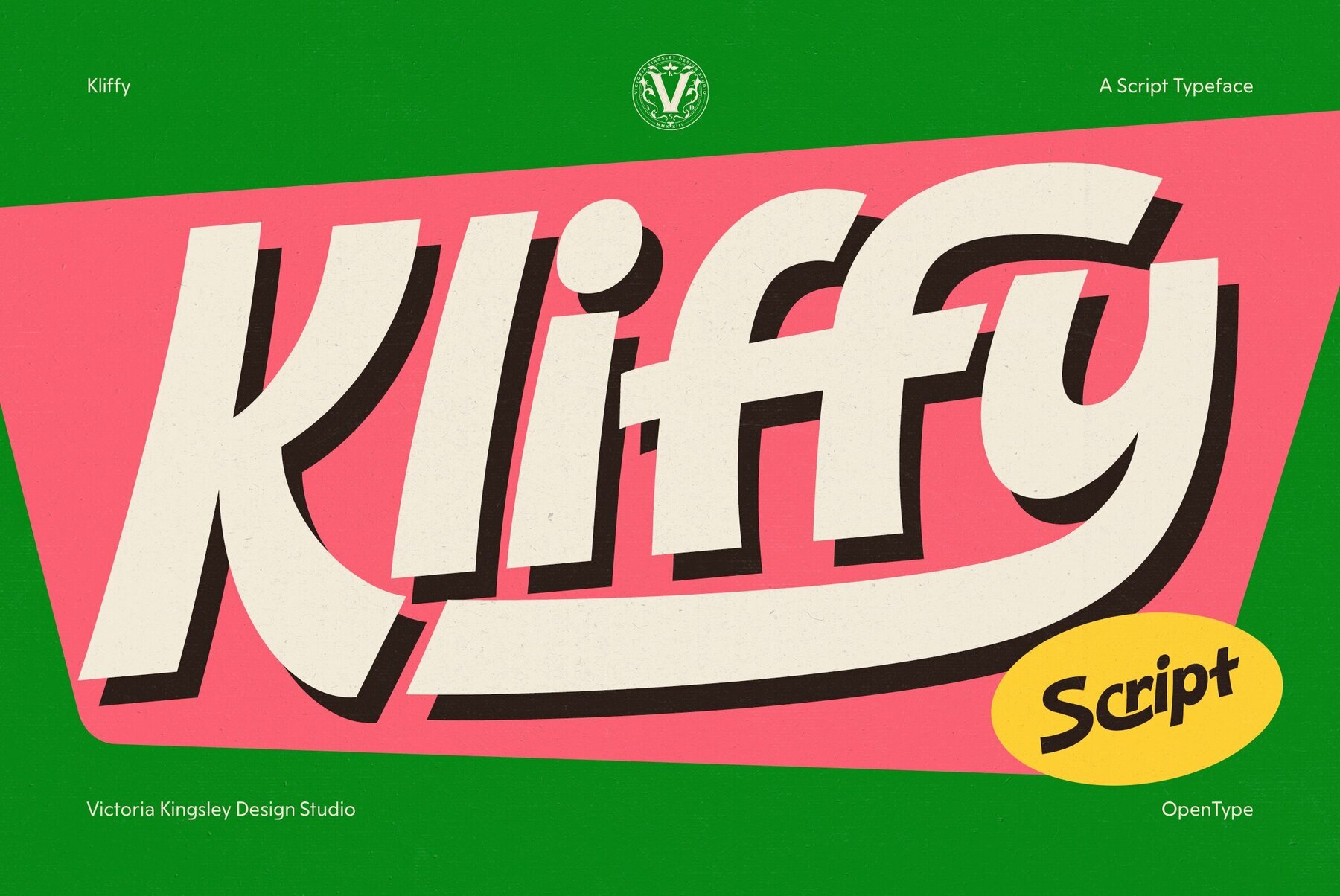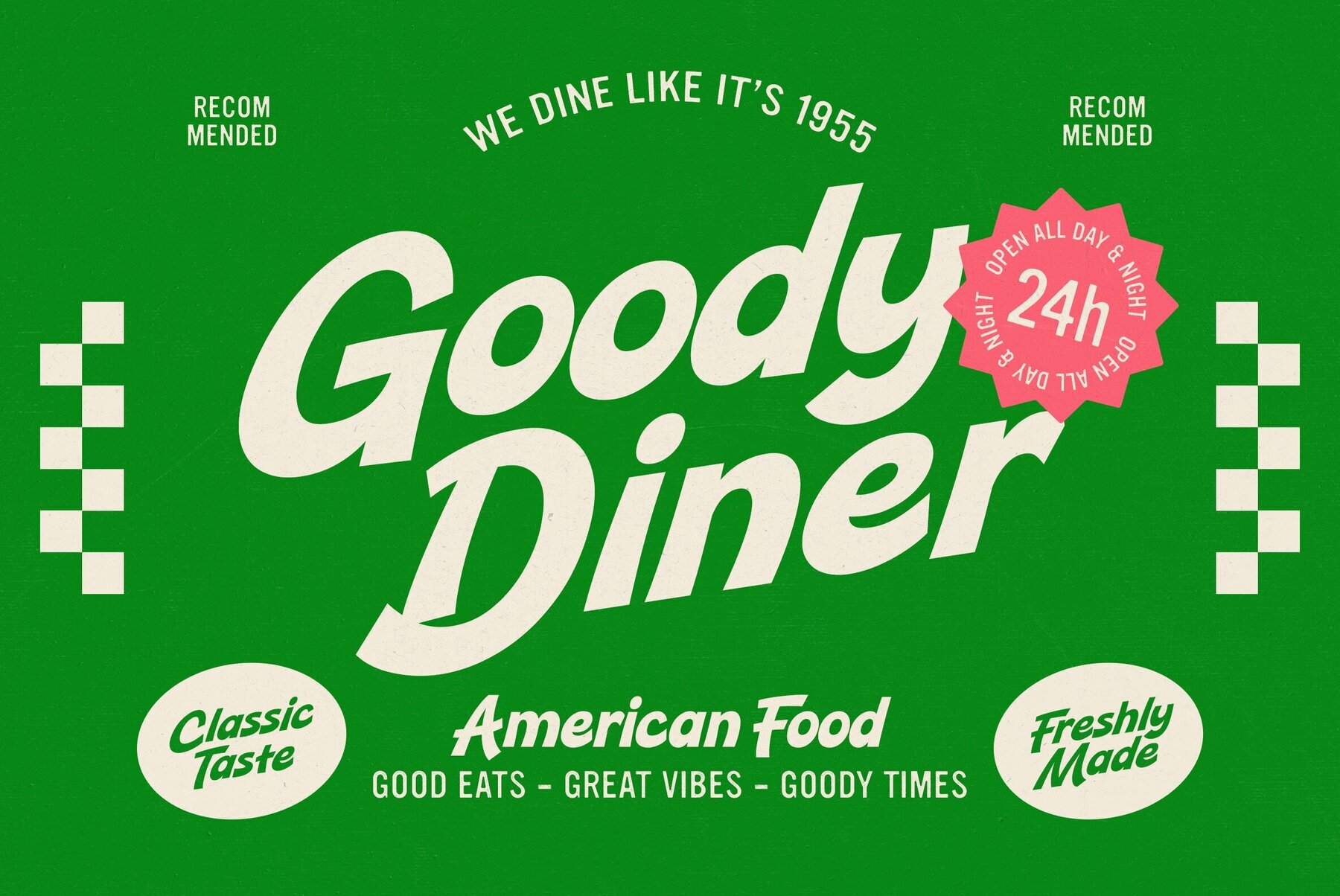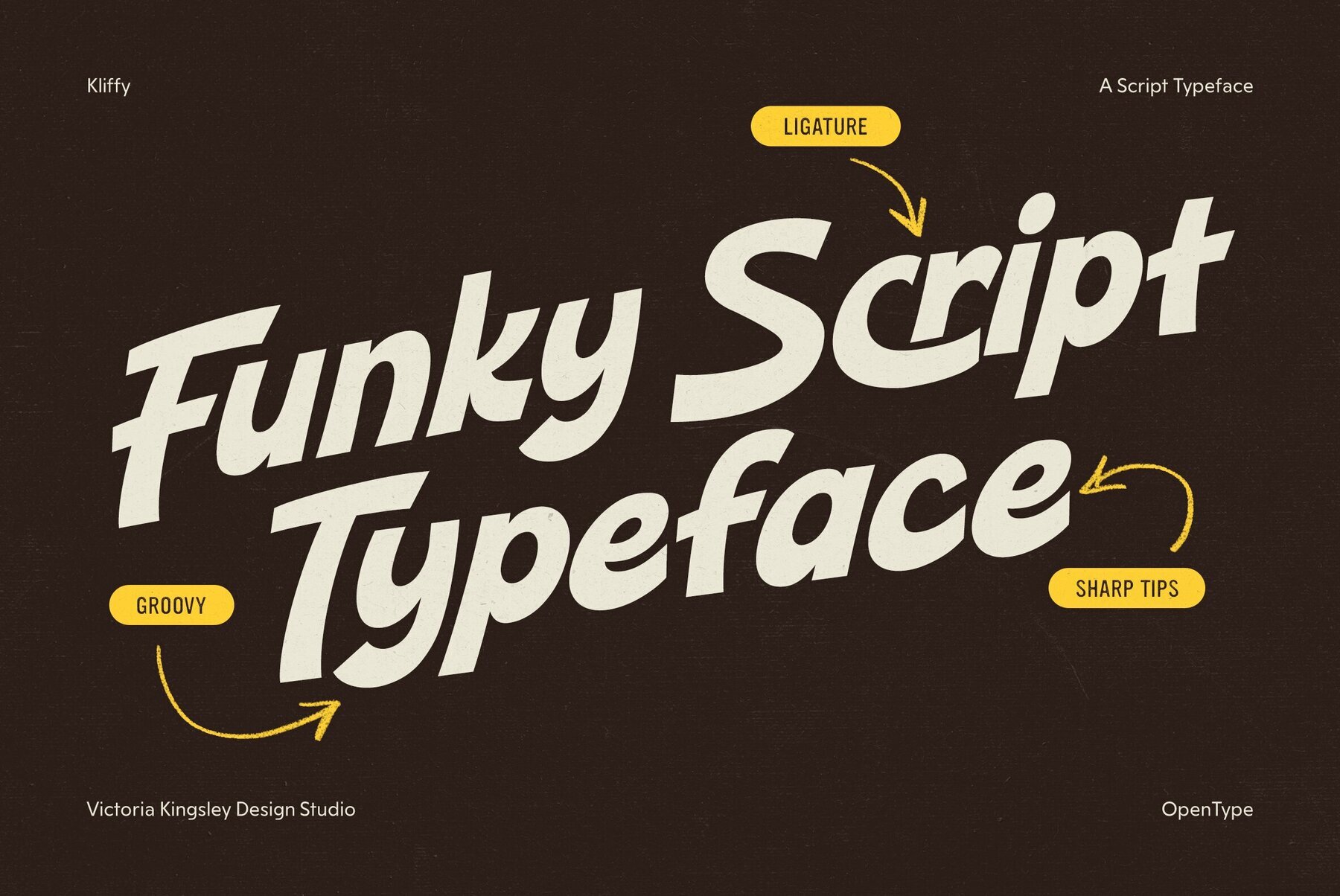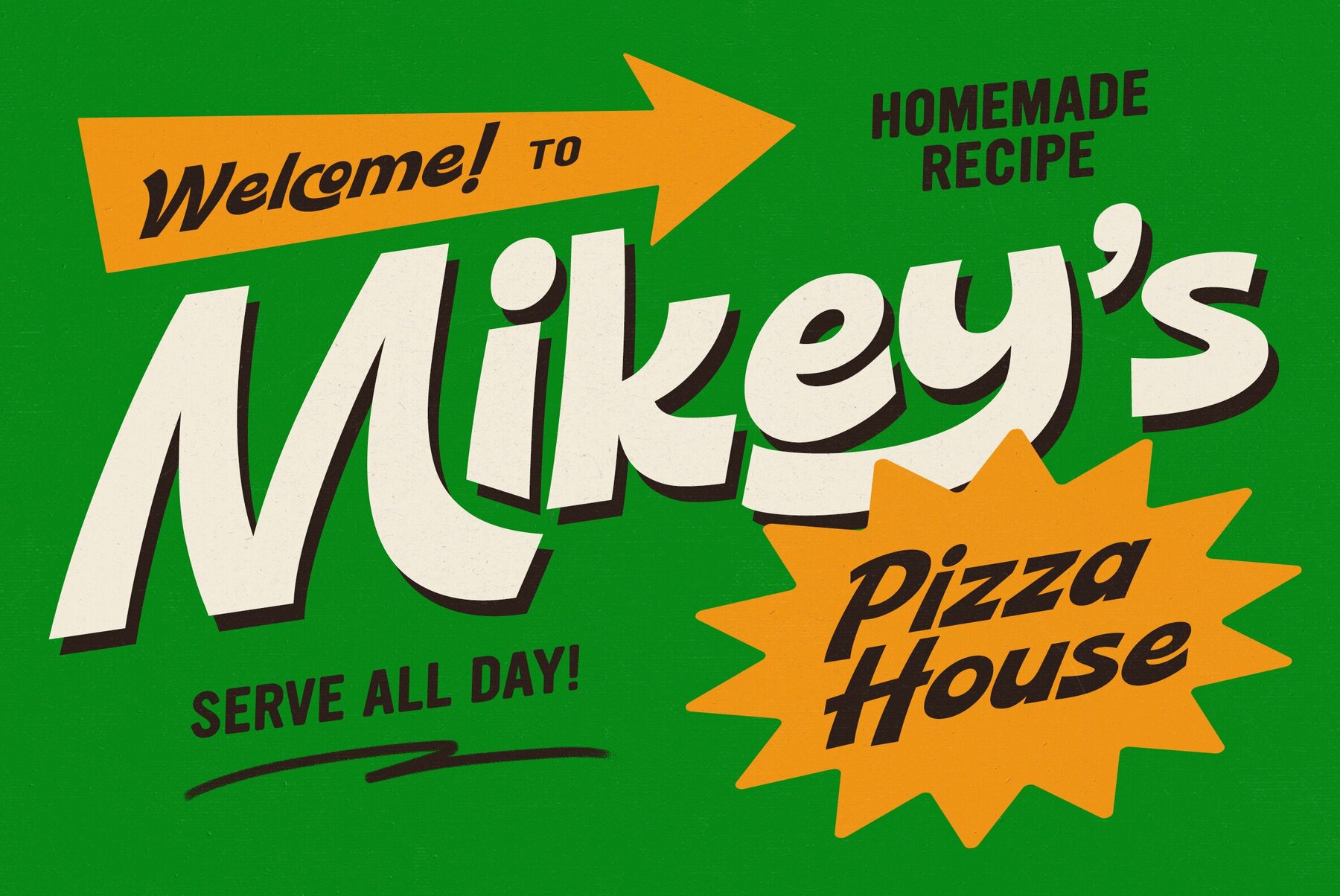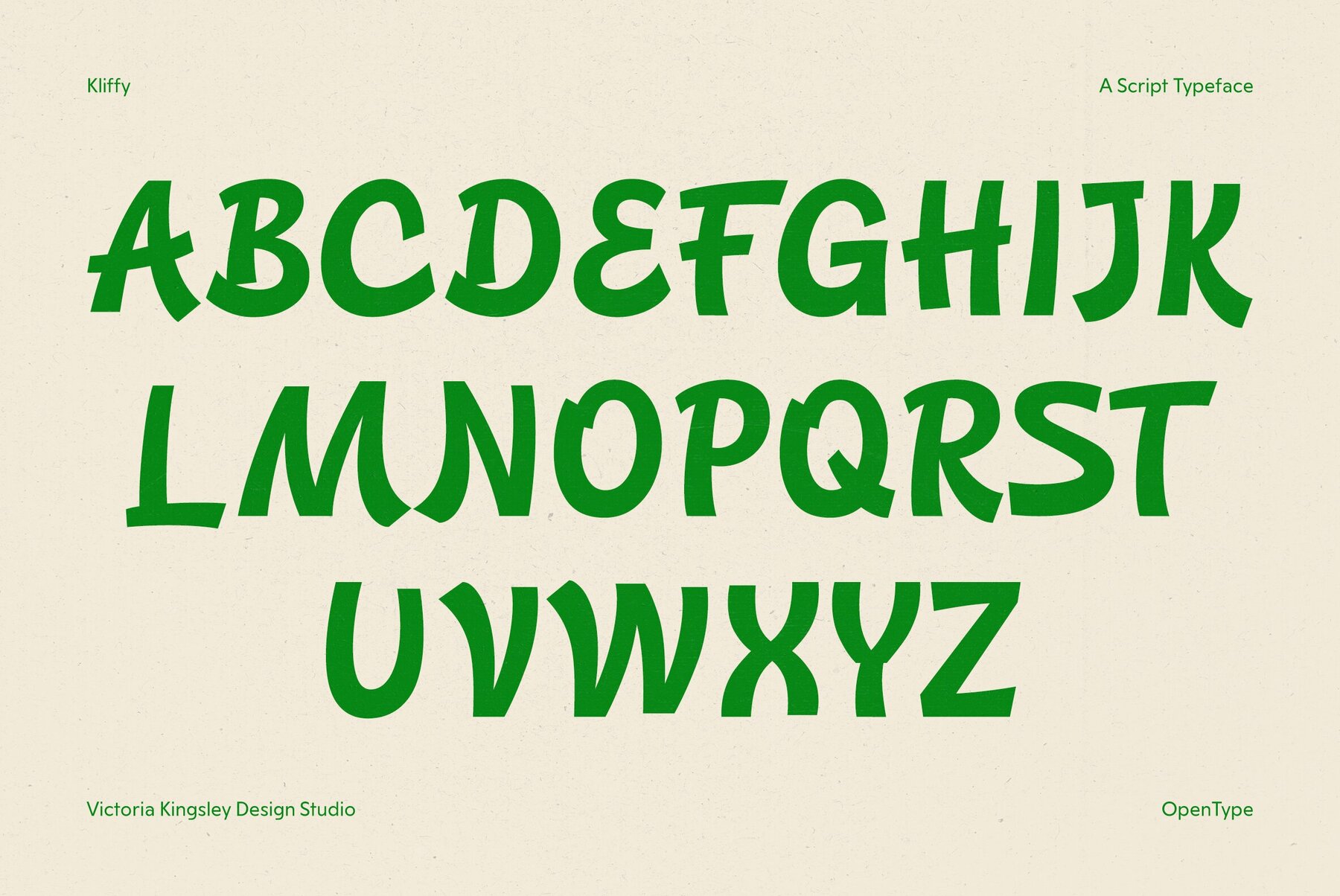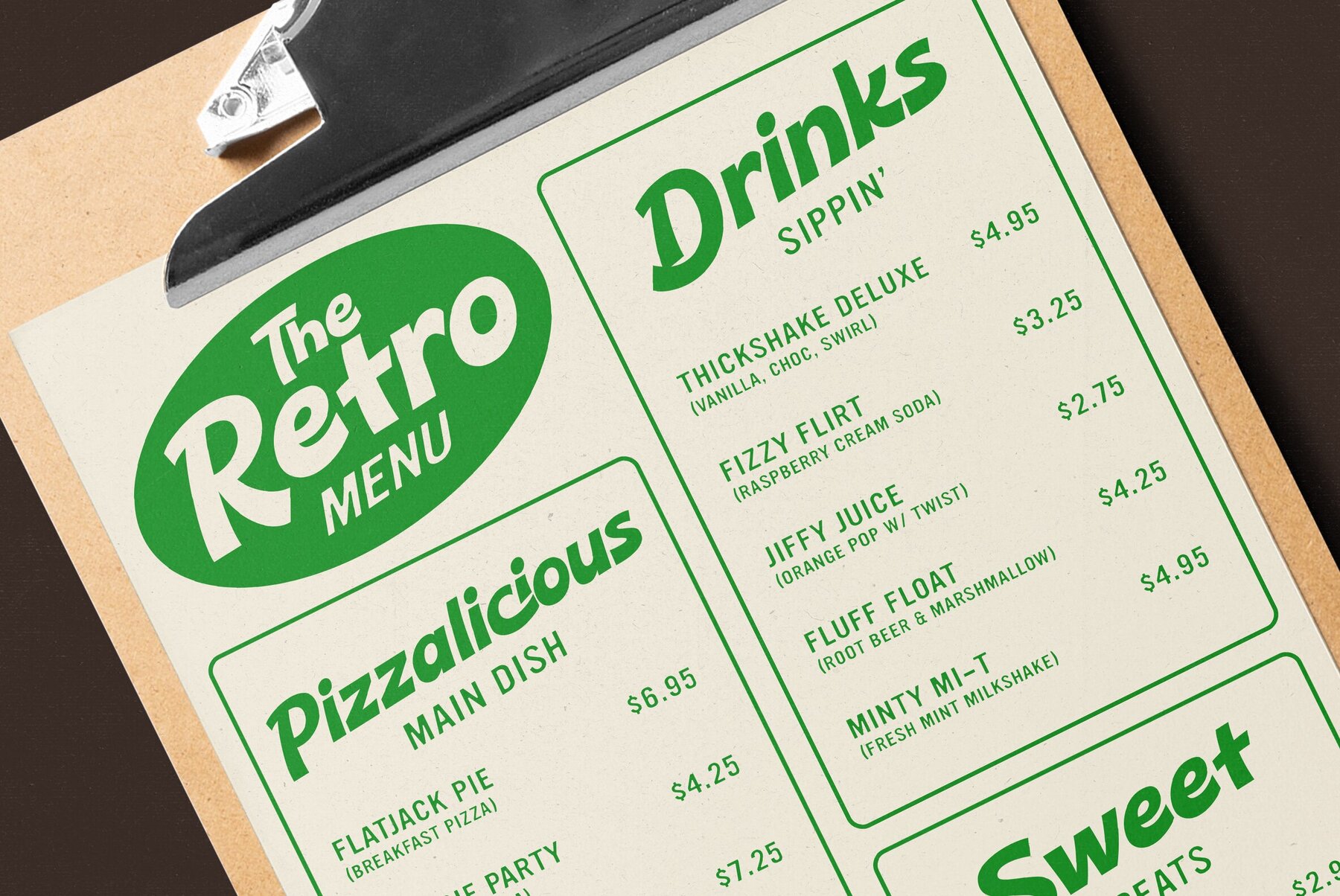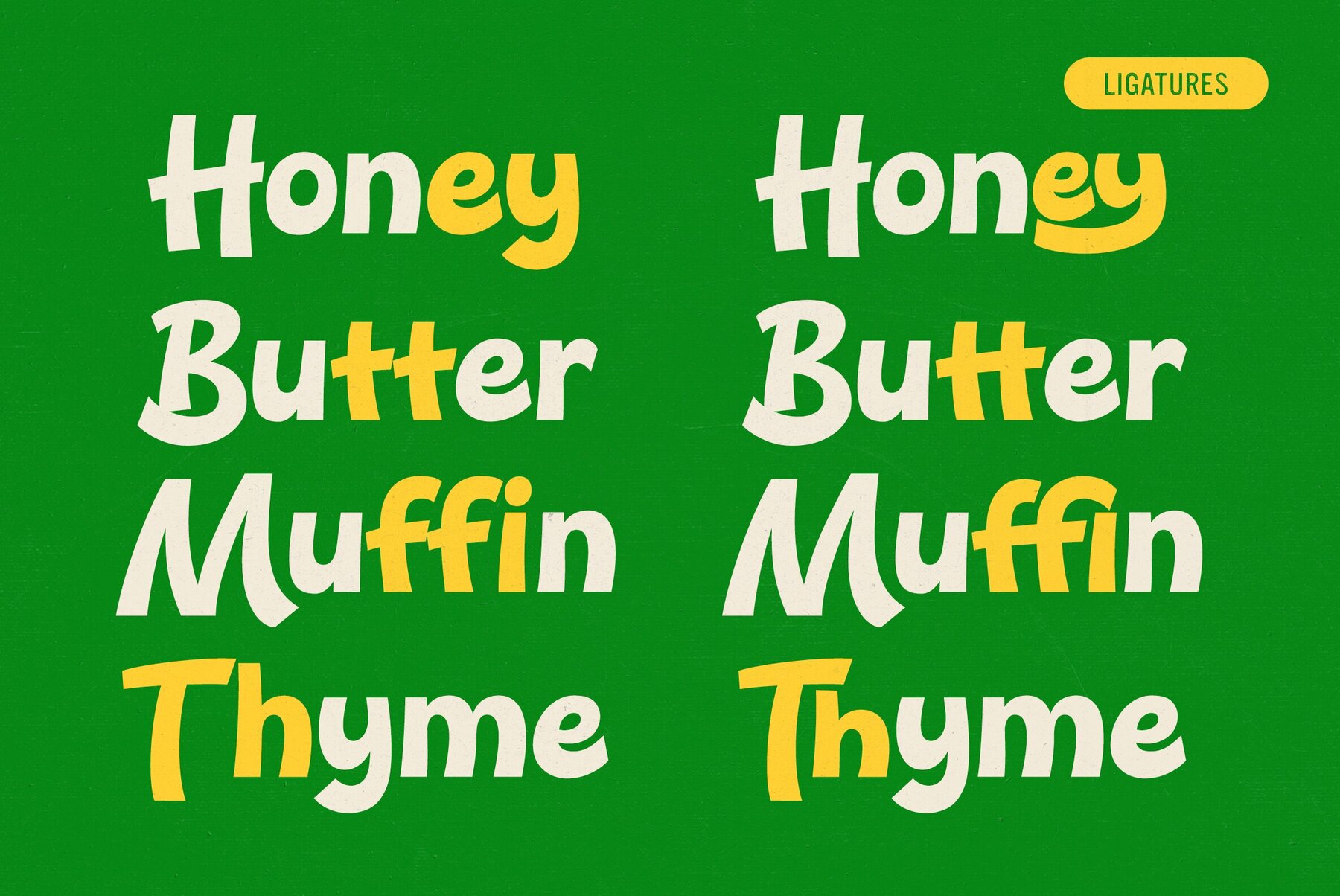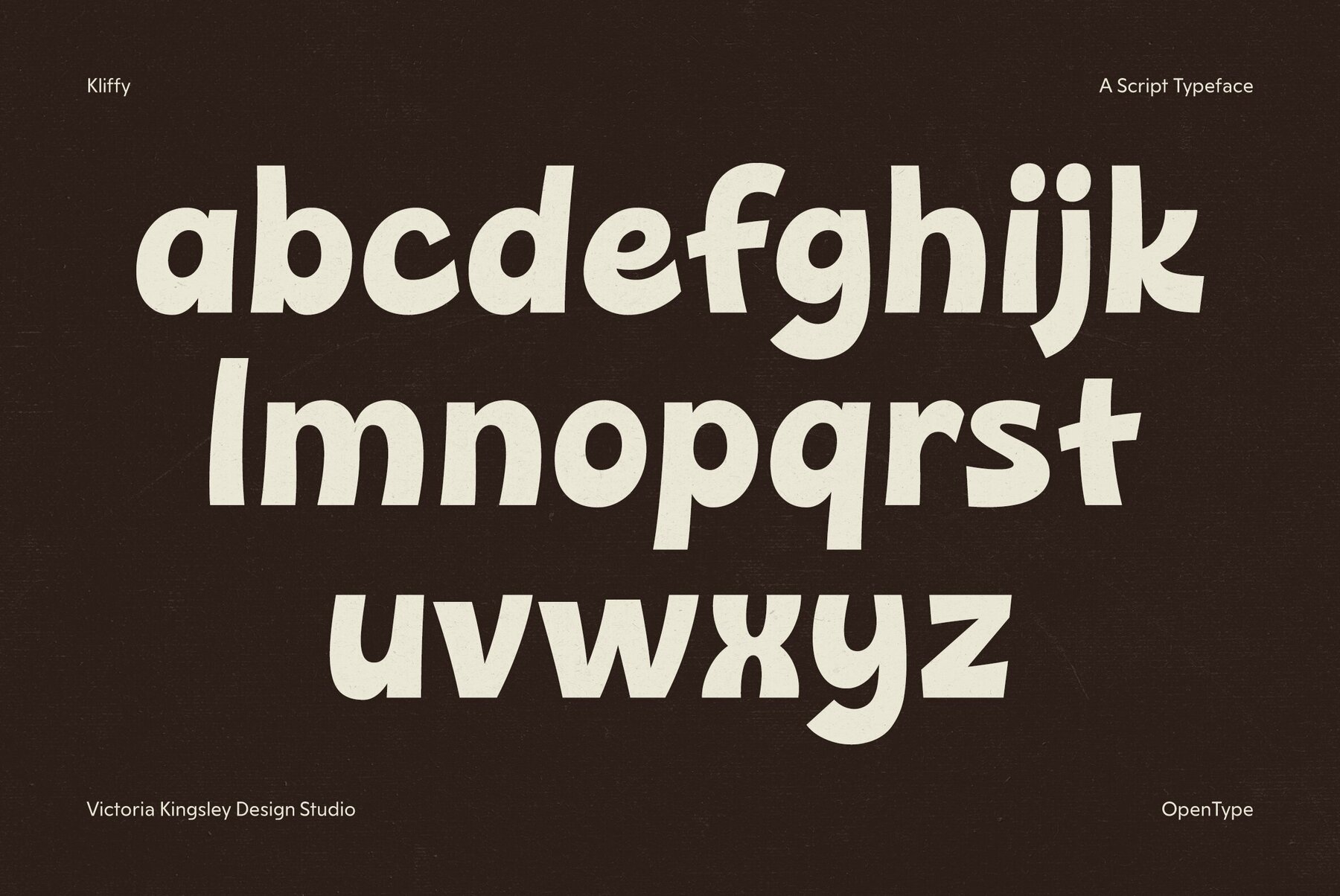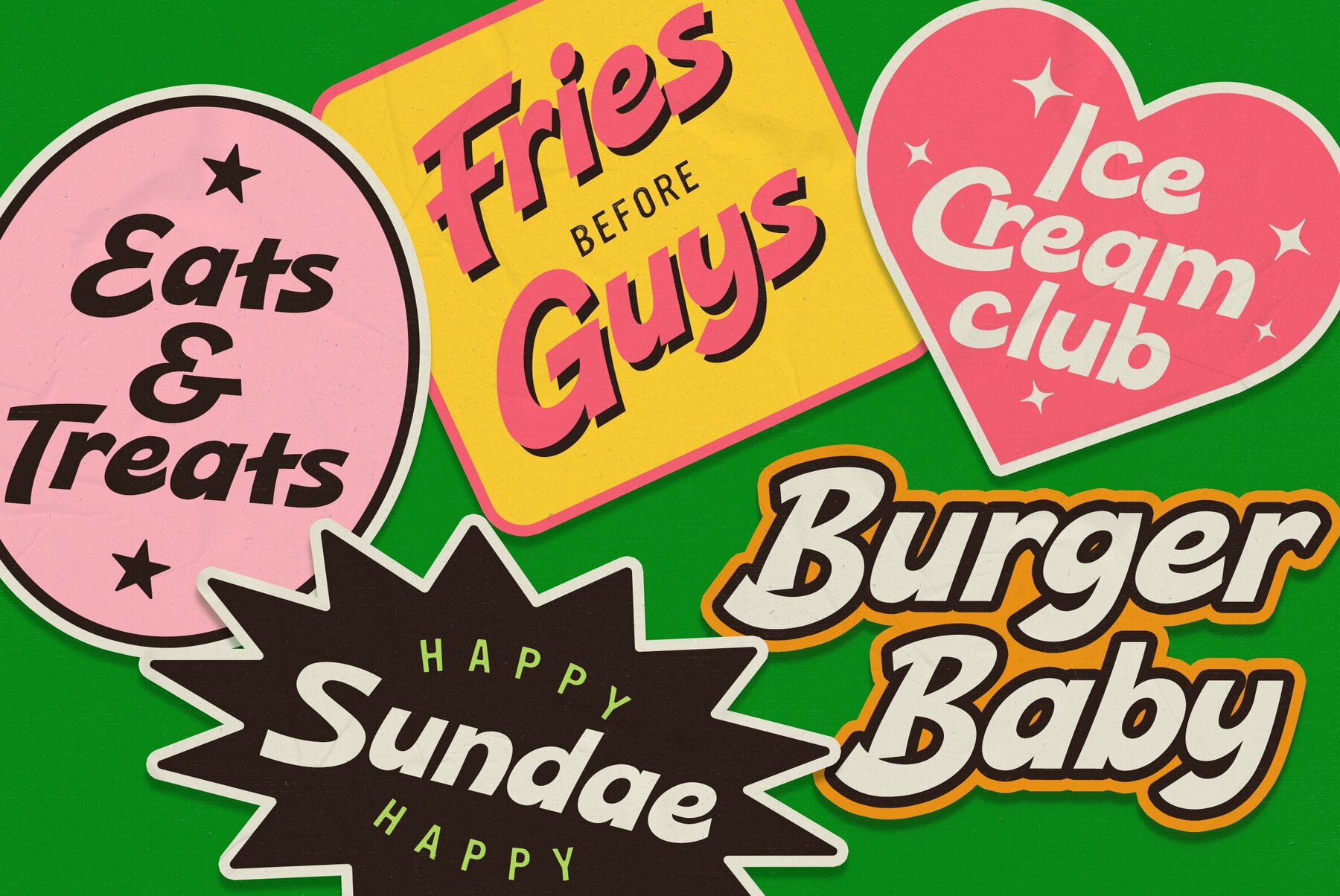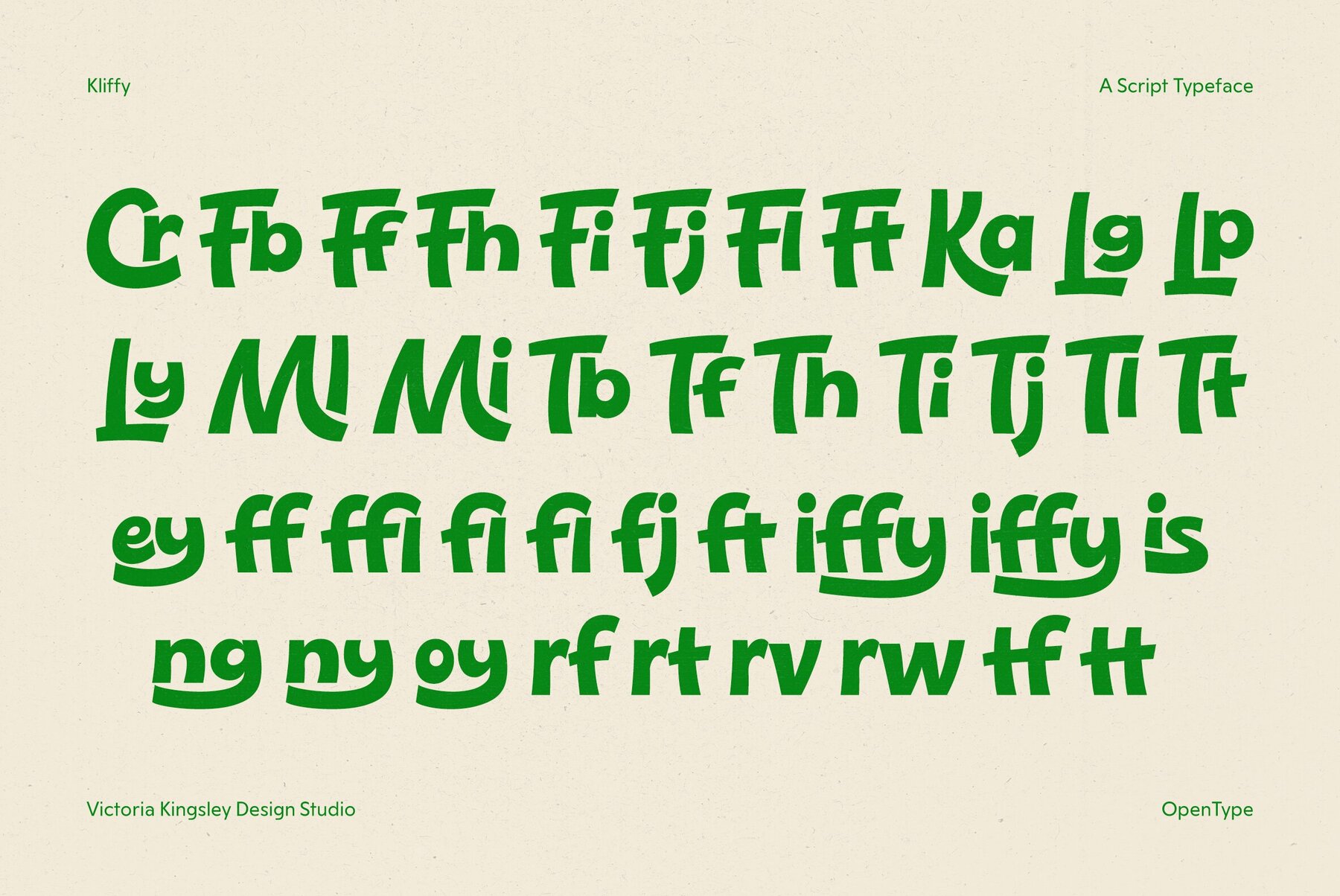
Kliffy is a bold script typeface that balances throwback charm with high-energy playfulness. Designed by Victoria Kingsley Design Studio and available exclusively at YouWorkForThem, this character-rich OpenType font feels like a roadside diner sign come to life—equal parts 1950s Americana and contemporary whimsy. With 374 meticulously crafted glyphs and a suite of OpenType features—including stylistic alternates, discretionary ligatures, and localized forms—Kliffy delivers visual dynamism that’s tailor-made for nostalgic branding, vintage menus, and children’s books alike. Whether it’s a logo for a retro ice cream parlor or playful packaging for pantry goods, Kliffy serves up instant personality with every character. 374 glyphs, offering flexibility for multilingual use and expressive typographic compositions Supports OpenType features: Alternates, Ligatures (standard & discretionary), Case-Sensitive Forms, Stylistic Sets, Glyph Composition/Decomposition Bold, tilted shapes and curved strokes echo vintage signage without feeling dated Ideal for restaurant branding, editorial headers, kids' book titles, animated broadcast titles, and retro promotional graphics Kliffy's lively structure invites engagement. It's quirky but not chaotic. The exaggerated letterforms create visual rhythm, making it a natural fit for headline design or packaging that demands shelf appeal. Pair it with a bold color palette and Kliffy won't just be part of the message—it becomes the message. Like all fonts at YouWorkForThem, Kliffy is offered with personal, commercial, and enterprise licensing. No subscriptions, no hidden fees—just straightforward licensing and generous usage rights. Plus, every order earns cash back rewards. Additional products used for slideshow images:Kliffy: A Playful Script Typeface With Vintage Pop Appeal
Built to Catch the Eye—and Hold It